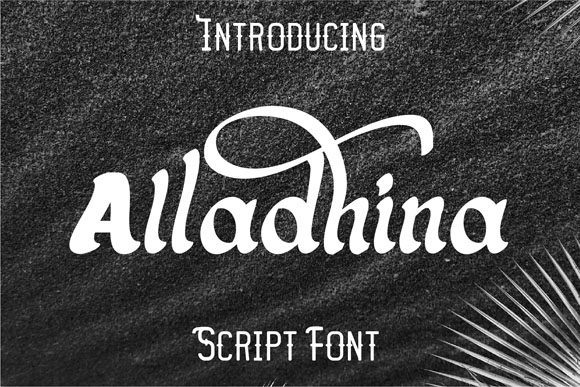
The Ultimate Guide to Alladhina Font: Elevate Your Designs with a Fun and Cool Handwritten Style
Alladhina is a fun and cool handwritten font with an amazing feel. It will turn any design project into a true standout! In this article, we’ll dive into the world of Alladhina Font, exploring its features, how to use it, and what makes it so special.
An Honest Review of Alladhina Font
What I Love About Alladhina Font
- ✨ Unique and playful handwritten style that’s perfect for creative projects
- ✅ Extensive character set, including glyphs and stylistic alternates
- ✅ Works well for both digital and print designs
While Alladhina Font is an amazing addition to any design project, there are a few things to keep in mind: 🤔
- ⚠️ Limited support for non-English languages
The Story Behind Alladhina Font
Alladhina Font was designed with the intention of creating a fun and playful handwritten font that would bring a smile to users’ faces. The designer, inspired by the beauty of handwritten letters, aimed to create a font that would be both legible and unique. 💫
Q: Is Alladhina Font suitable for body text?
A: While Alladhina Font is highly legible, it’s recommended for use in titles, headings, and short paragraphs rather than body text.